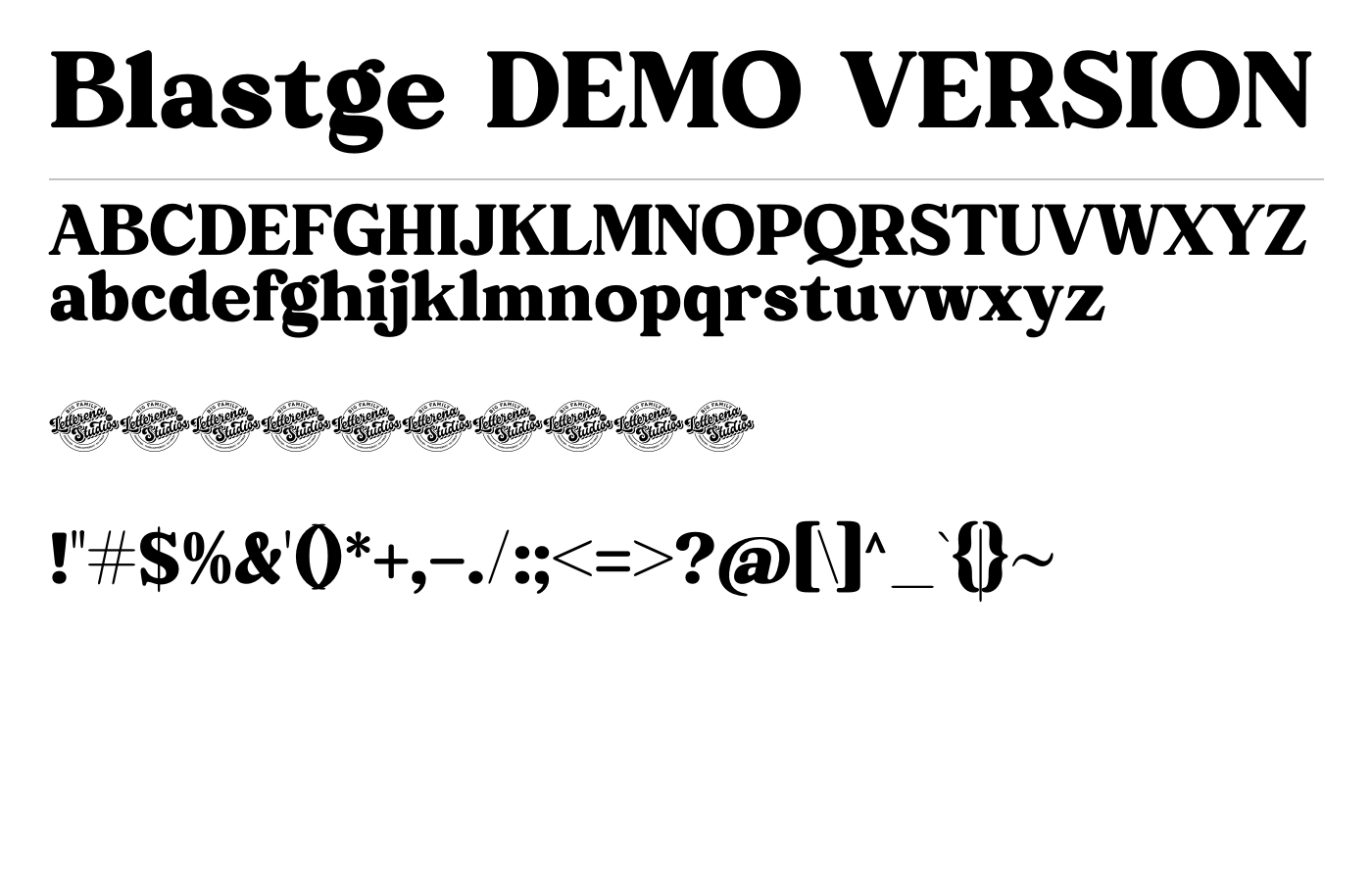
Blastge DEMO VERSION is a bold serif typeface featuring strong, bracketed serifs and a robust, slightly condensed structure. With high stroke contrast and distinctive old-style touches like double-story ‘a’ and ‘g’, it conveys a confident, traditional feel perfect for headlines, editorial design, and branding that calls for a classic yet assertive presence. Its clear letterforms and solid weight make it ideal for attention-grabbing titles and packaging where readability and impact matter.
Blastge DEMO VERSION Font
About Blastge DEMO VERSION Font